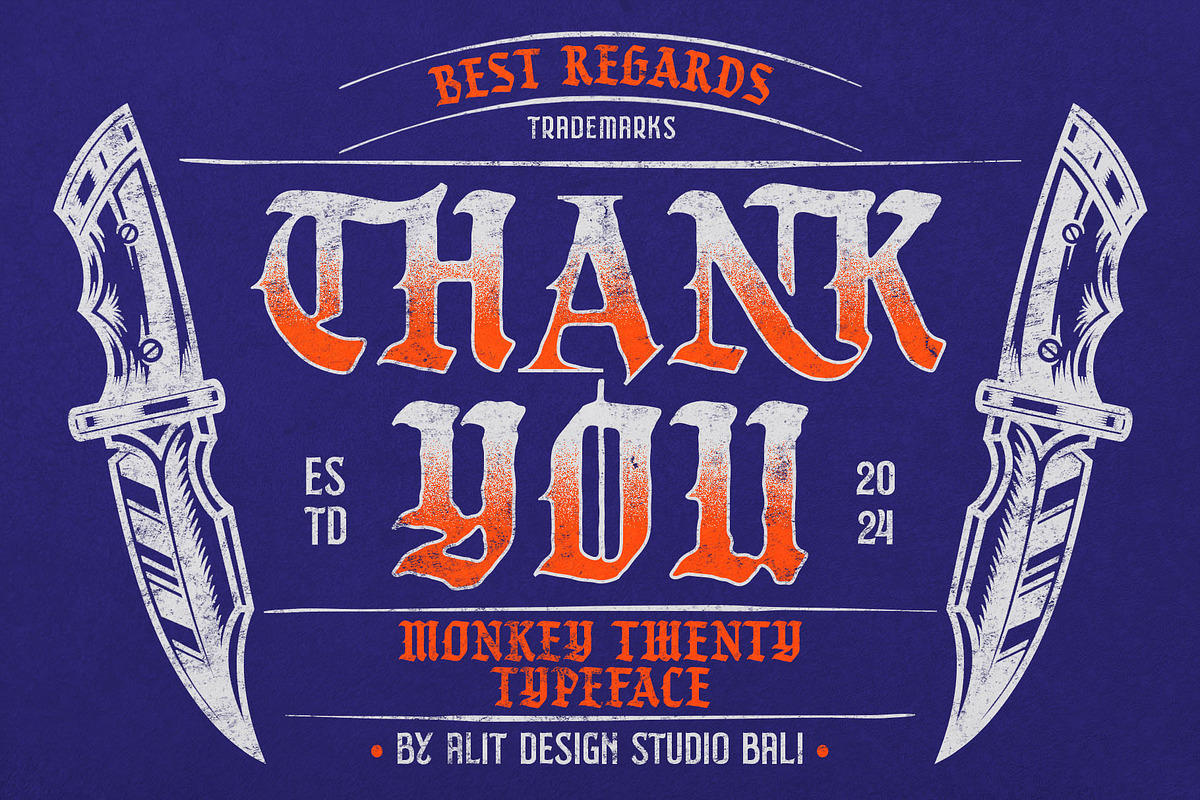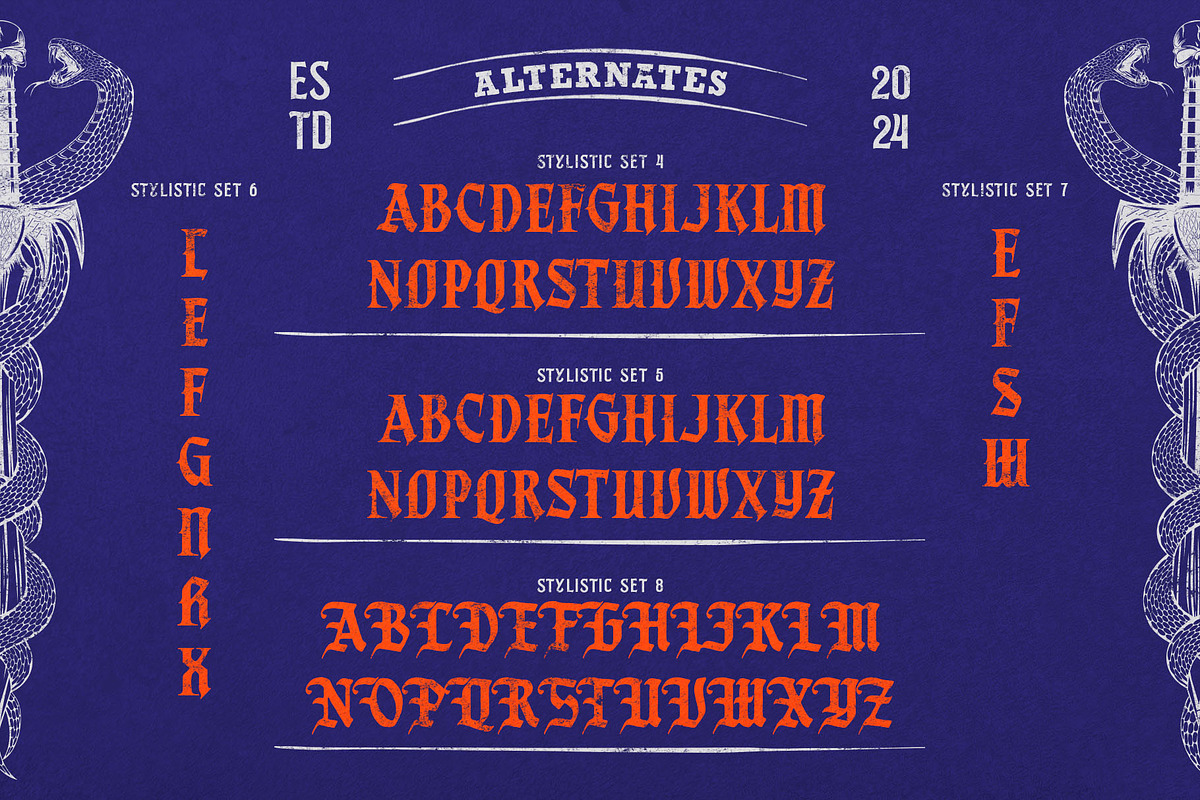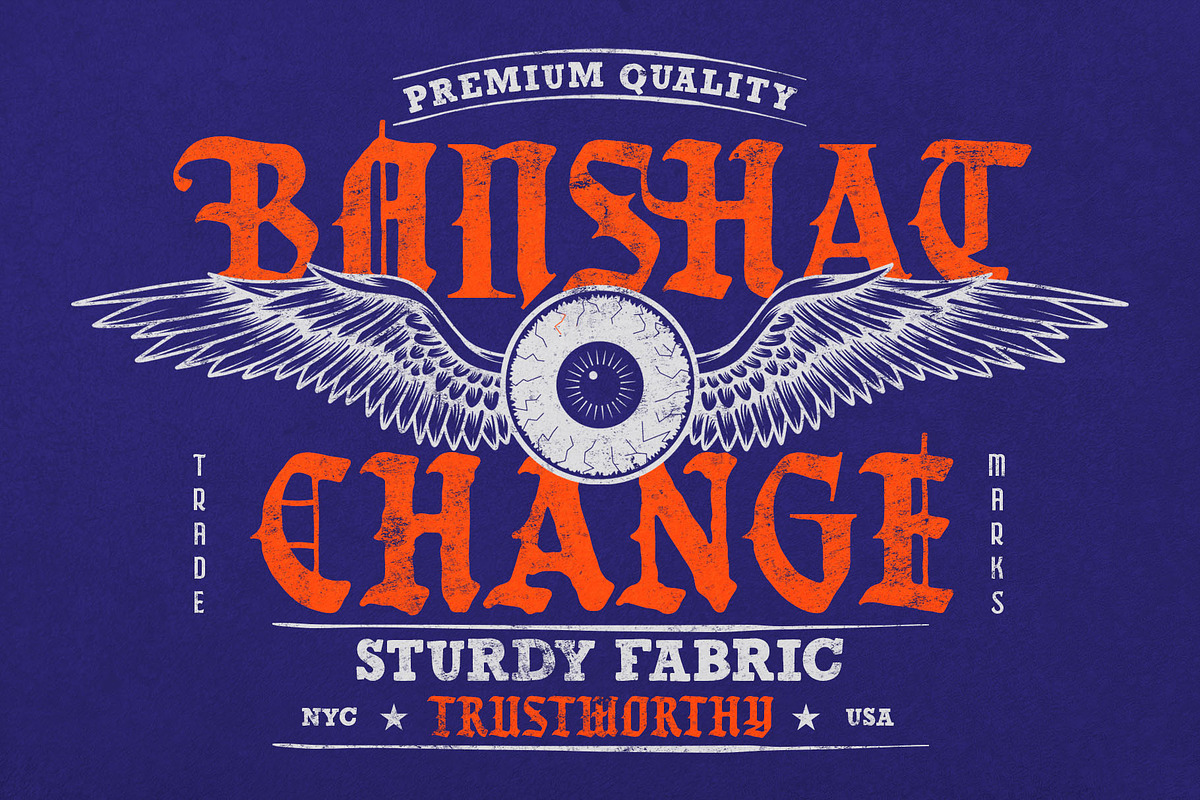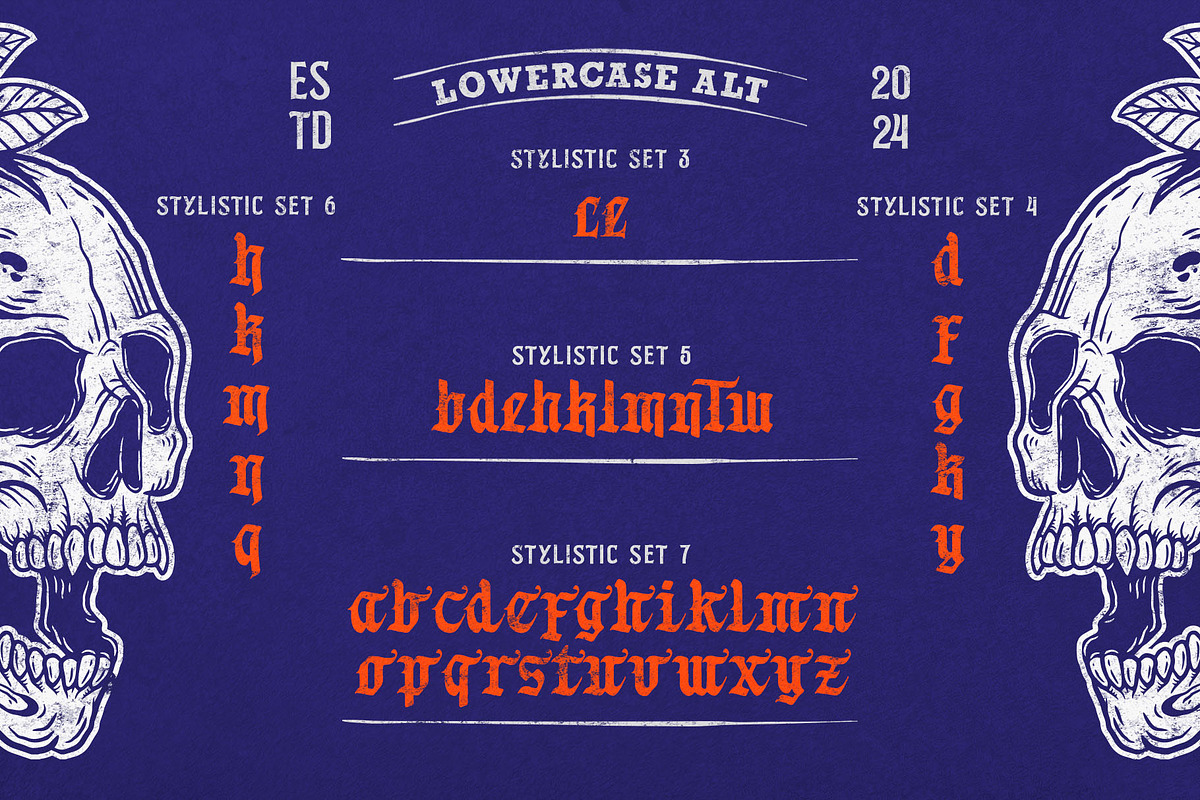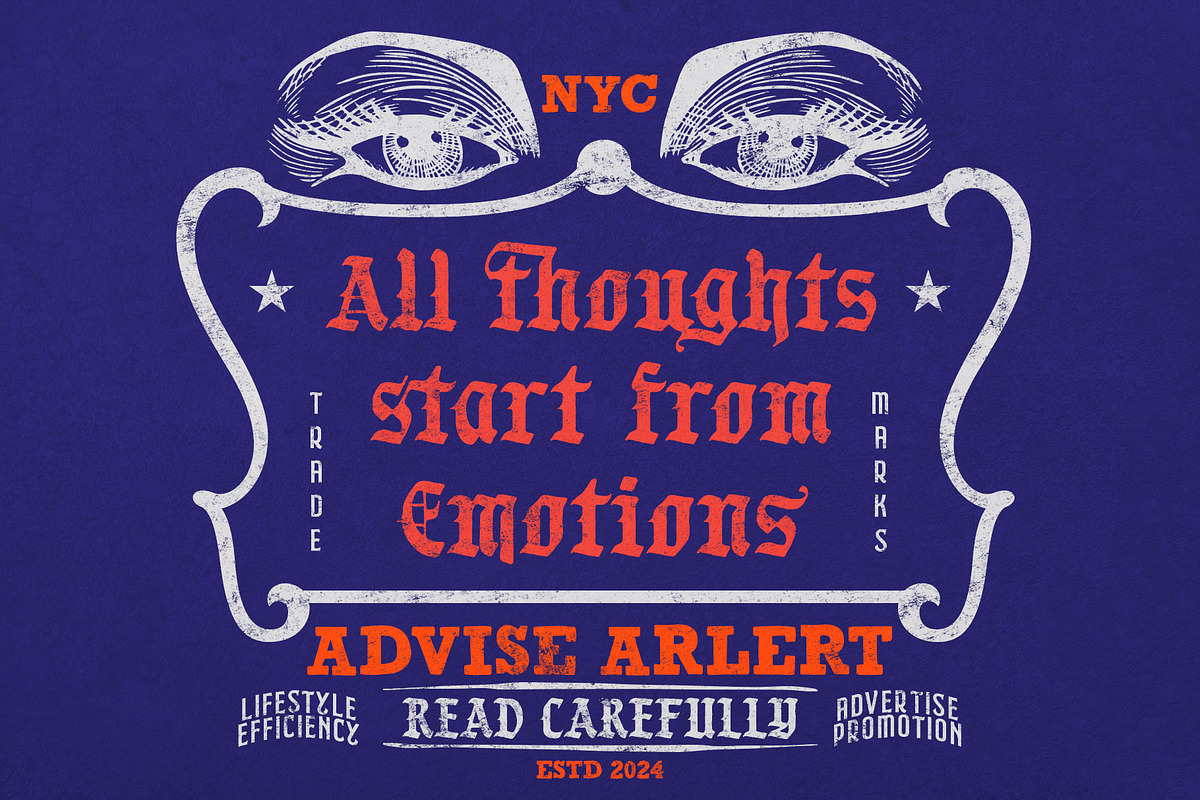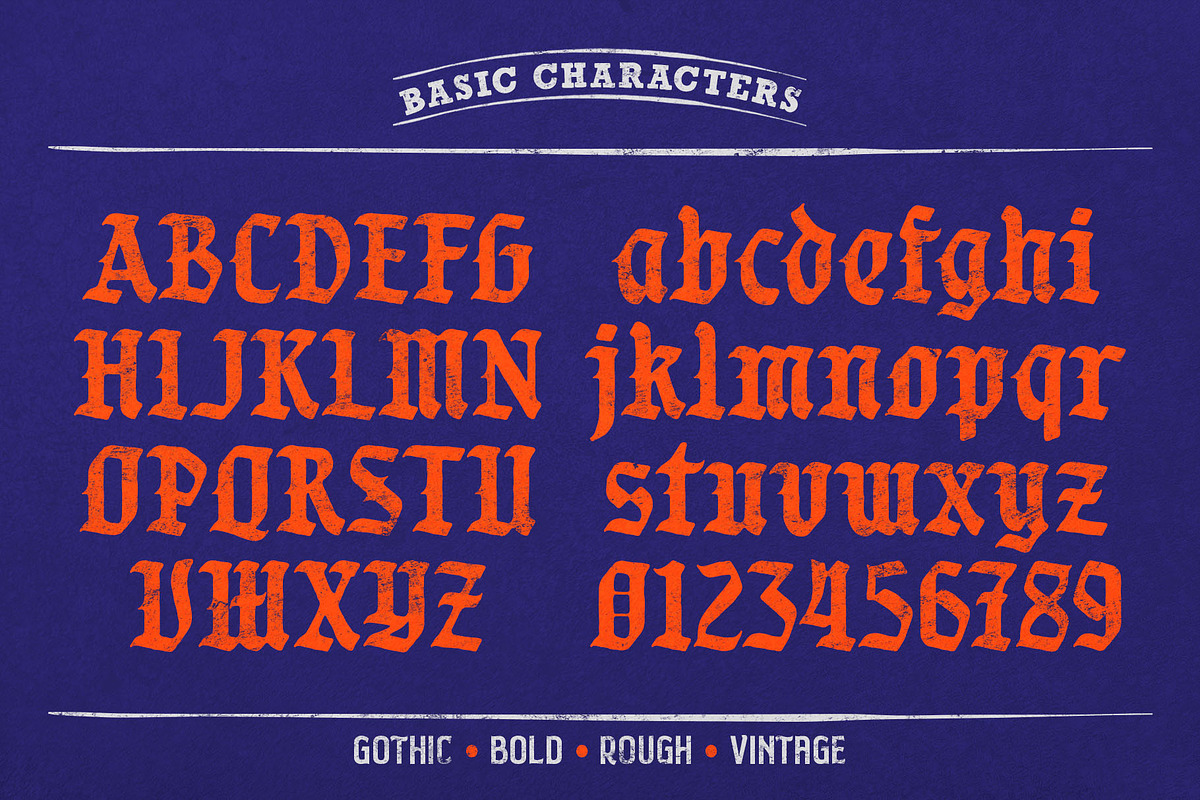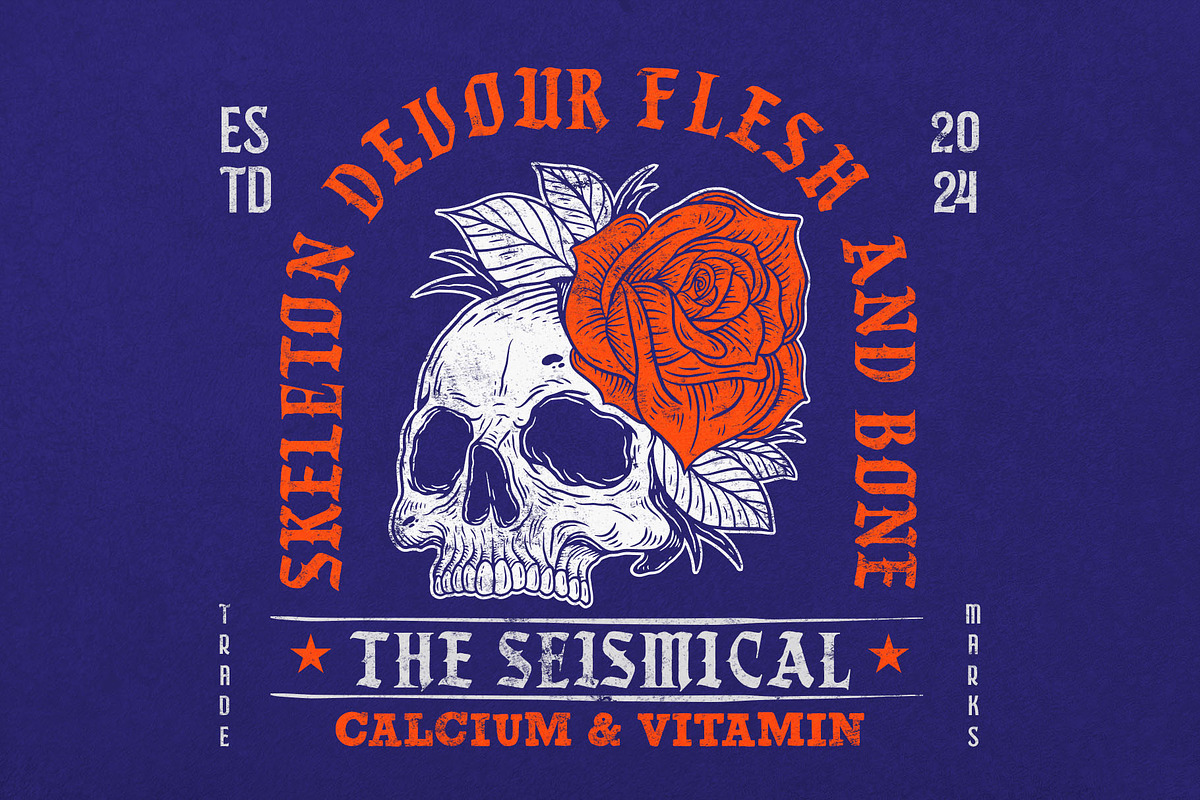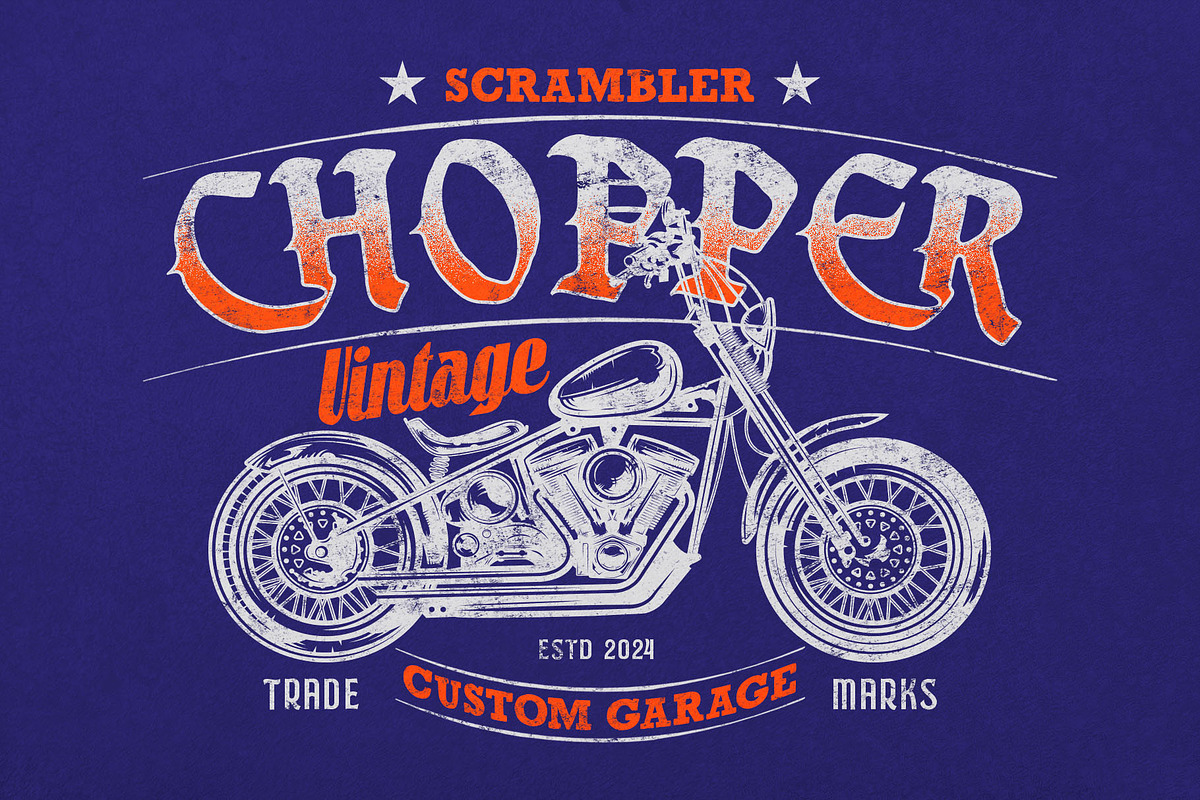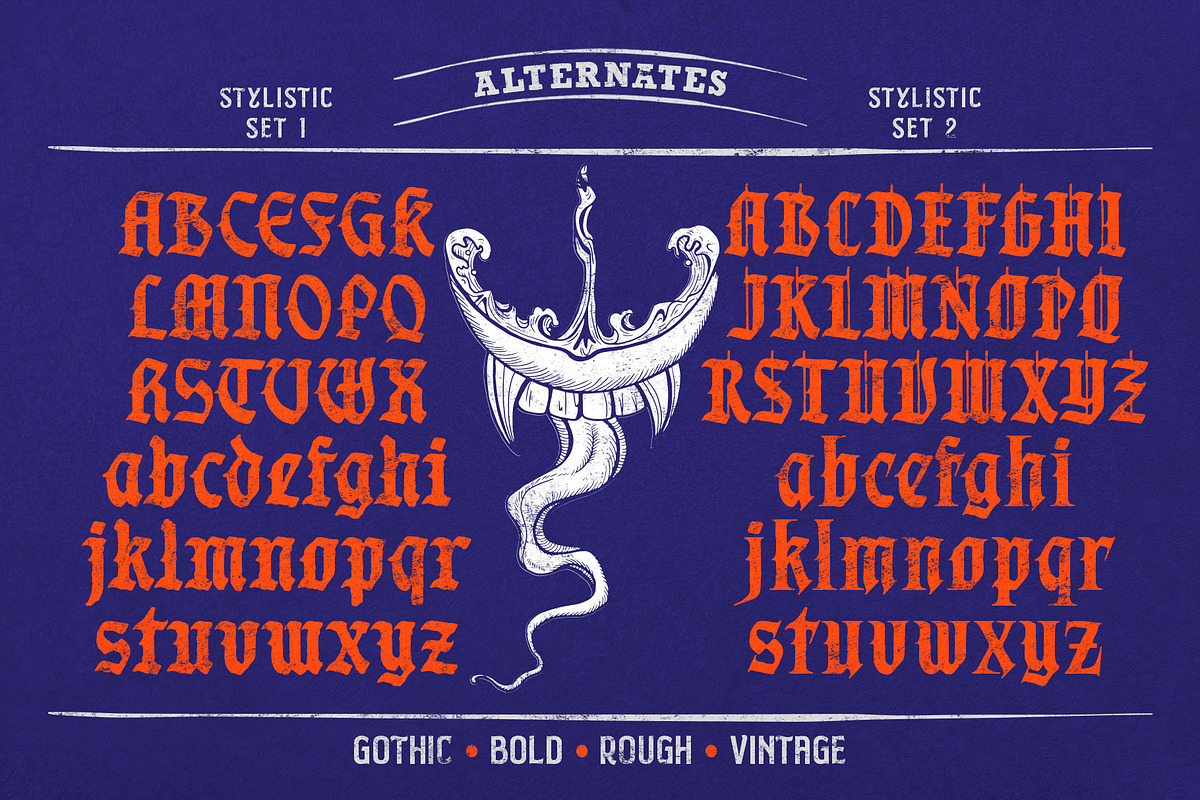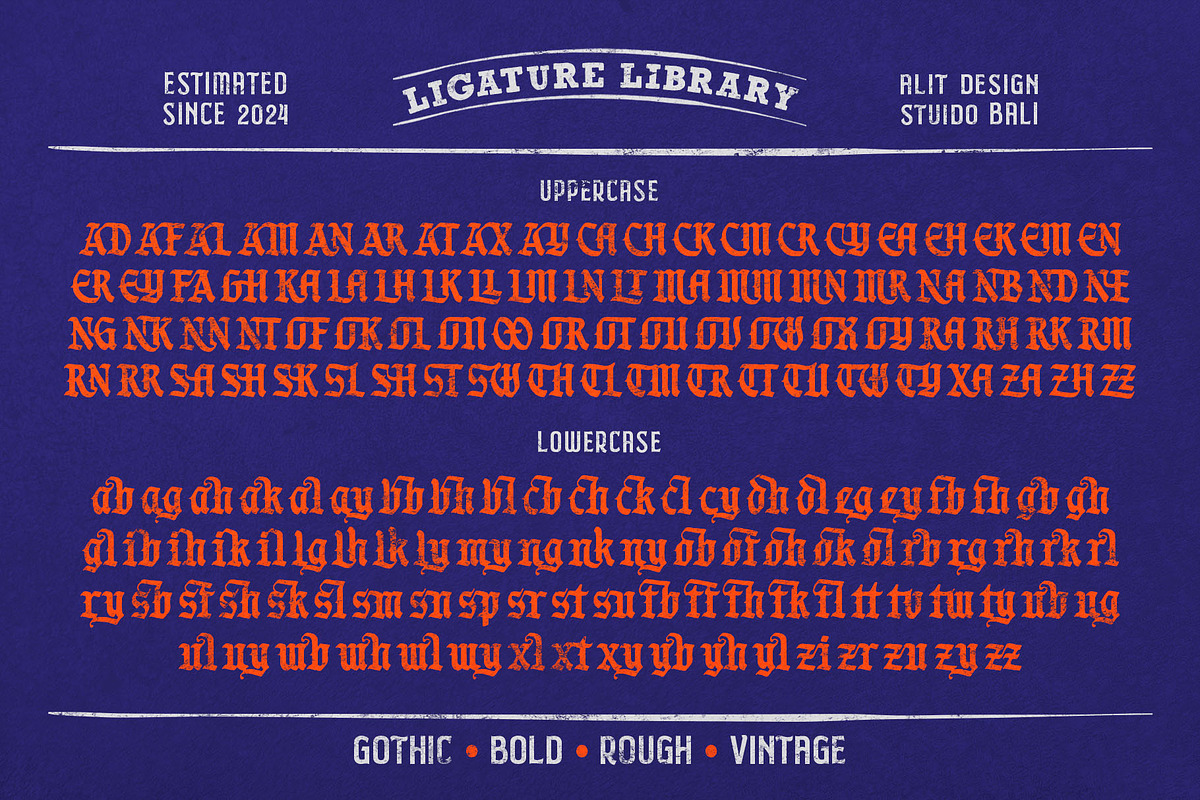
Monkeys Twenty Blackletter
"Monkeys Twenty Blackletter Font" is a unique and rugged typeface that combines the traditional elegance of Blackletter with the bold strength of a Serif font. The design has a distinctive, rough, stamp-like texture that gives it a vintage and hand-crafted feel. This font exudes a sense of old-world charm while maintaining a modern edge, making it perfect for designs that require a bold, yet sophisticated statement.
- 912 Glyphs: A comprehensive set of characters, offering a vast range of typographic possibilities.
- Multilingual Support: This font supports multiple languages, ensuring versatility for global designs.
- PUA Unicode: All glyphs are accessible, making it easy to use without special software.
- Ligatures: Special character combinations enhance the visual flow of the text.
- Alternates: Additional character variations provide creative flexibility and stylistic options.
Whether used for branding, packaging, posters, or editorial design, "Monkeys Twenty Blackletter Font" brings a bold, rough, and classic aesthetic to any project.